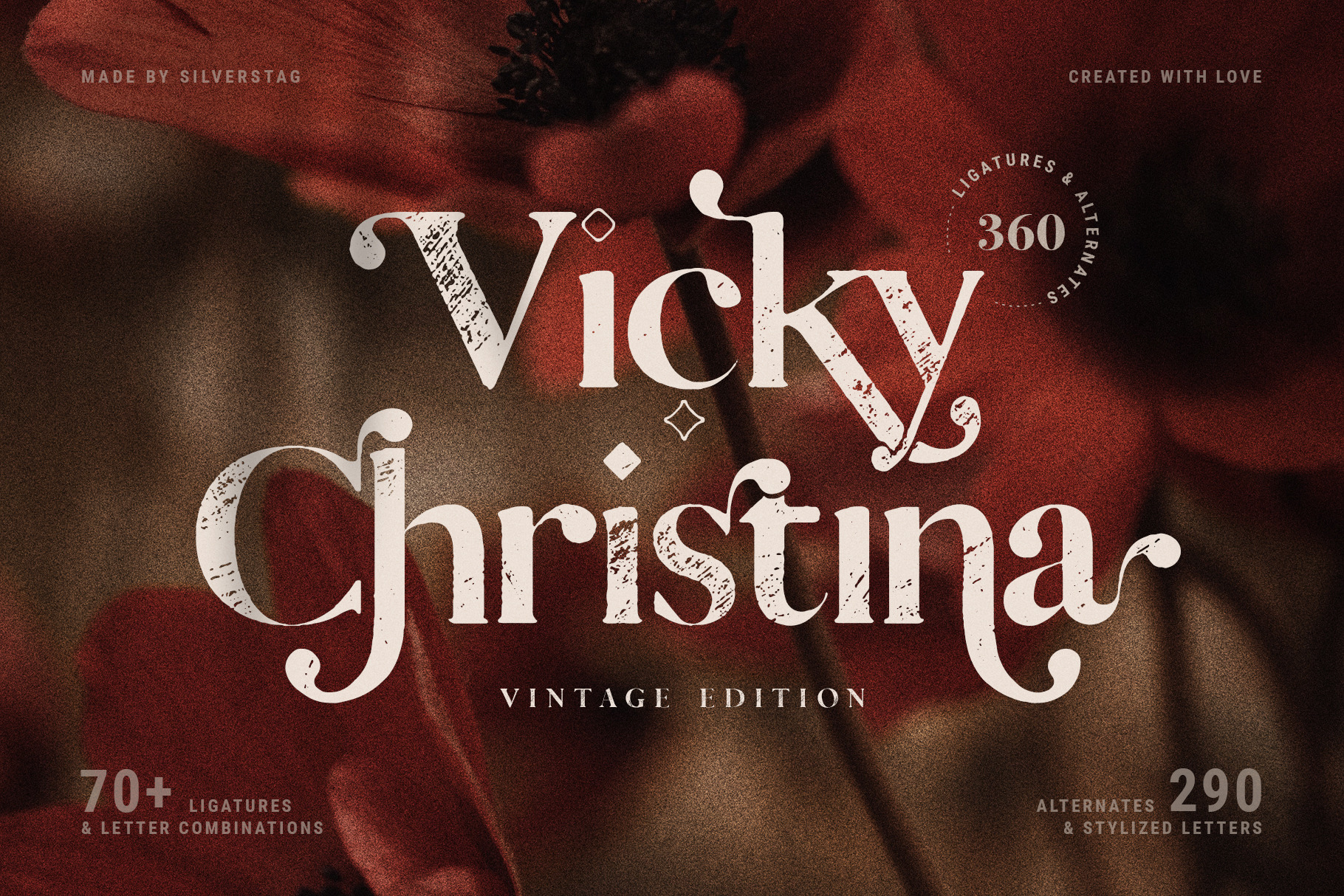
Hey everyone, are you ready for a completely reimagined look for one of my most popular fonts? A brand new image that makes every single letter completely unique and different? Well, I have been working hard during the summer to give you exactly that. A new version of a popular font that makes it even more unique and classy. I am happy to present you the vintage version of Vicky Christina, a cool serif font with over 360 creative ligatures and alternates!
I have been working on the original version for quite a while and the ideas were just popping all around for more ligatures, more alternate letters, new combinations, new swirls,... And I ended up with over 360 alternates and ligatures in one serif font! Now with a creative new texture effect your projects will be even more unique!**
Whether you have a client that needs a new chic logo, or you're designing your social media posts. Maybe you're preparing your wedding mood board, stationery, invitations, Vicky Christina Ligature font is just perfect for all of that and more. Check out the photos I have prepared for you to see what you can do with it and happy creating!
The following letters are included: A À Á Â Ã Ä Å C Ç D Ð E È É Ê Ë I Ì Í Î Ï N Ñ O Ø Ò Ó Ô Õ Ö U Ù Ü Ú Û W Ẃ Ŵ ẄẀ Y Ý Ÿ Ỳ Ÿ Æ Œ ß Þ þ in uppercase and lowercase so Vicky Christina supports a huge number of languages.